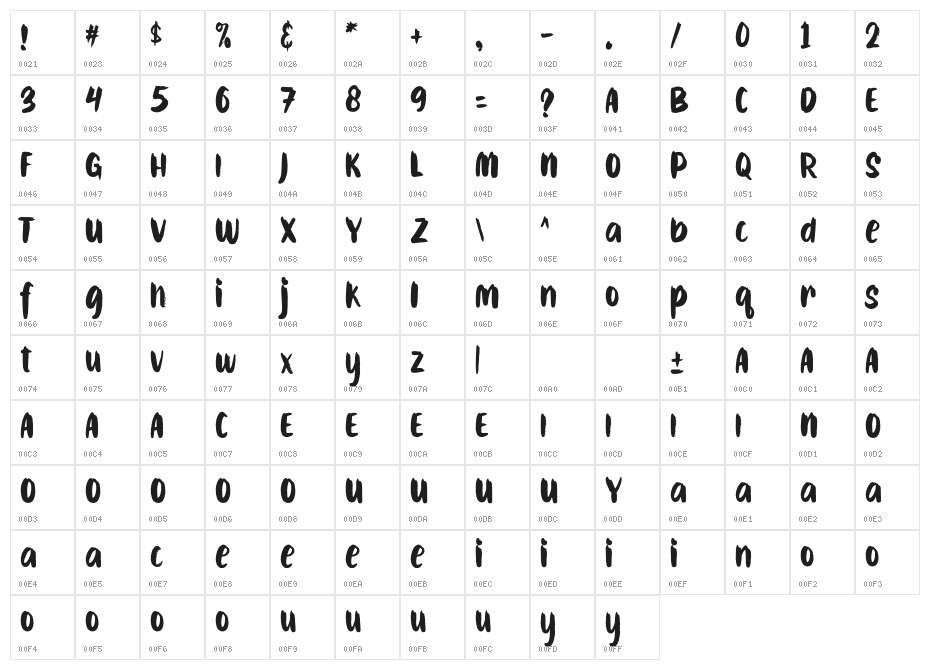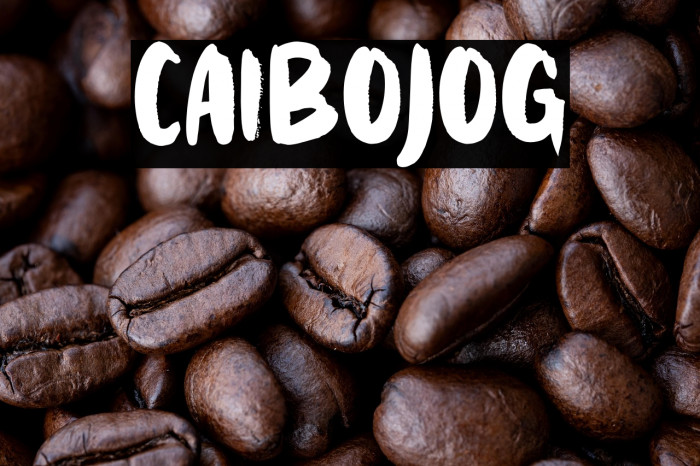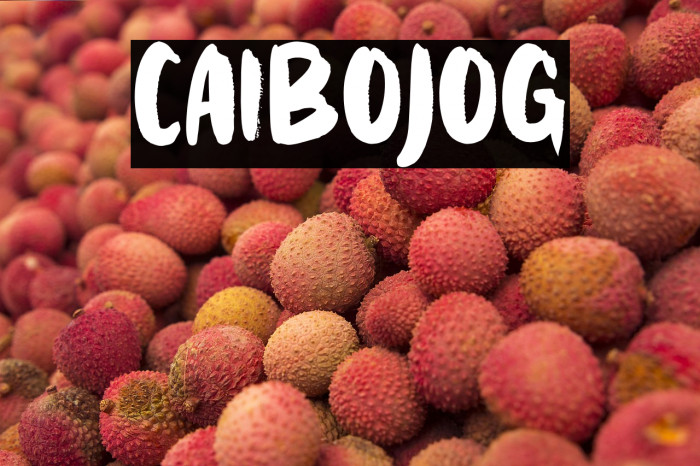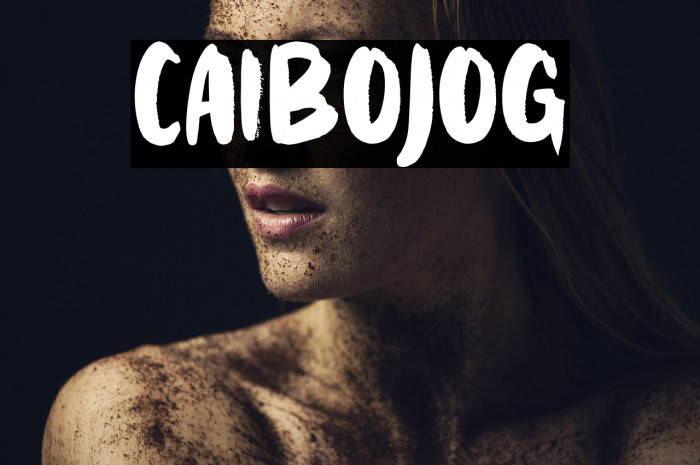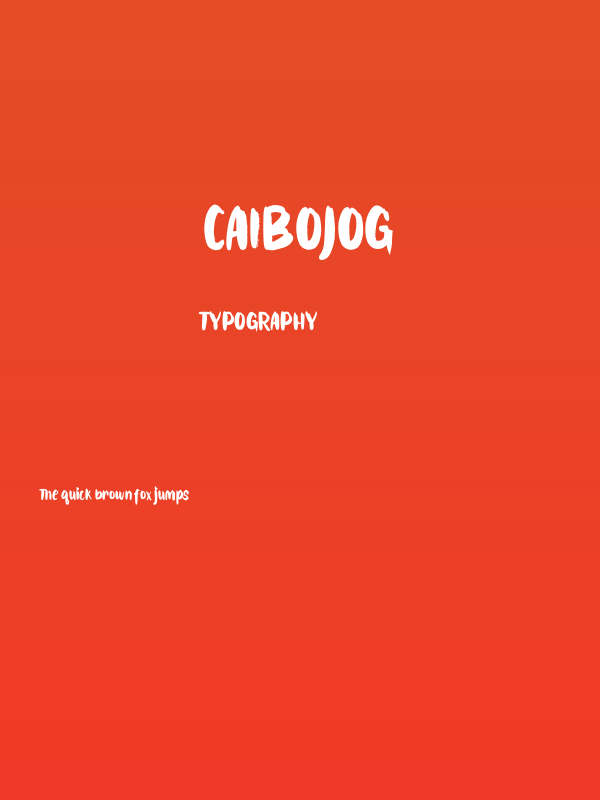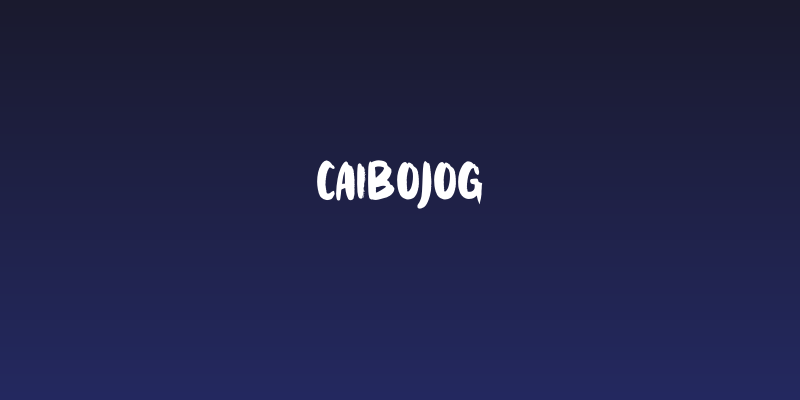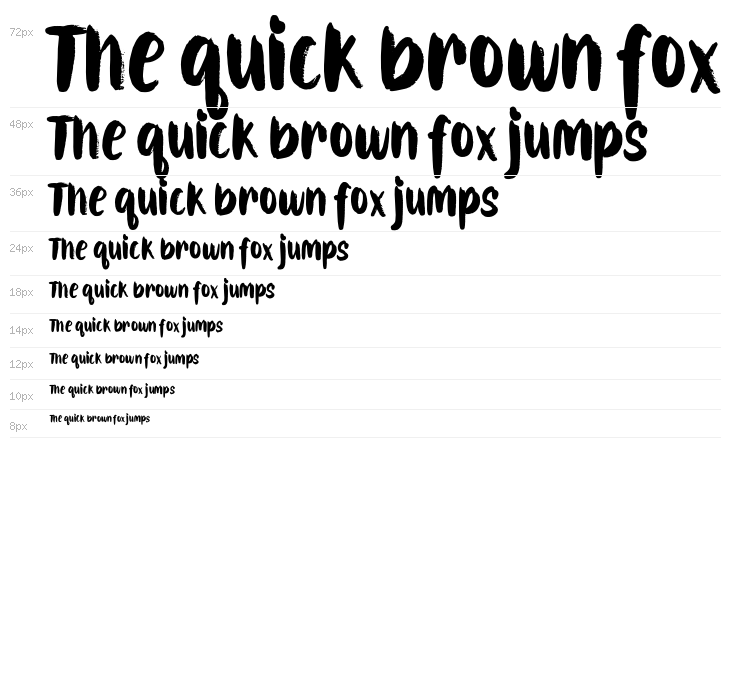
CAIBOJOG Font
CAIBOJOG Description
This font features a bold, expressive style with a hand-painted appearance. The characters are thick and dynamic, with a brush-like texture that gives them a lively and artistic feel. The uppercase and lowercase letters maintain a consistent boldness, while the numbers and special characters complement the overall design. The strokes are uneven, adding to the handcrafted aesthetic, and the characters have a slightly irregular baseline, enhancing the casual and informal vibe. This font is ideal for projects that require a personal touch or a creative flair.
| Proposed Projects | Ideal for posters, branding, packaging, and creative projects that require a bold, artistic touch. |